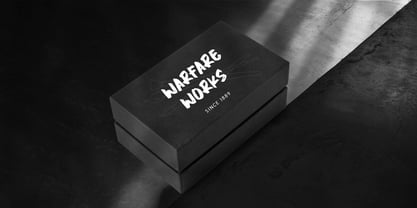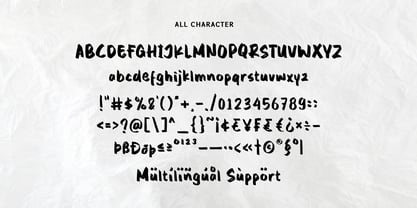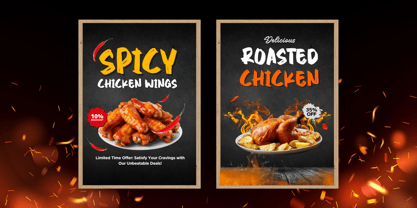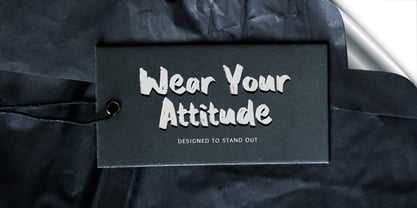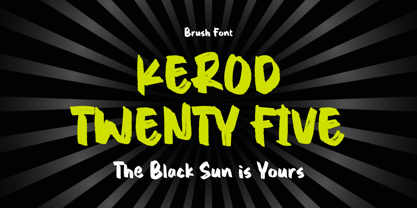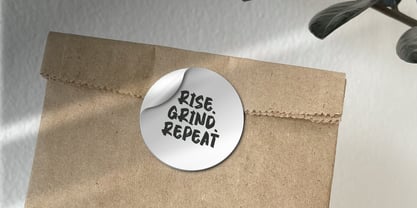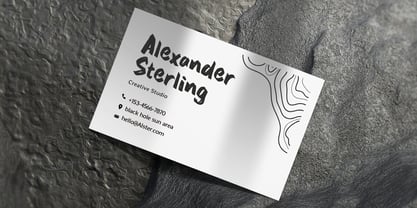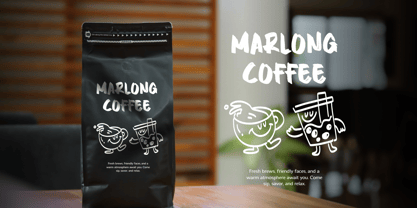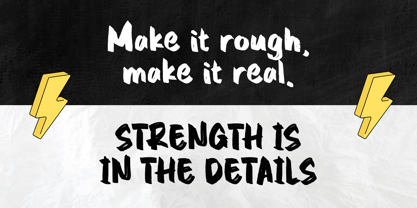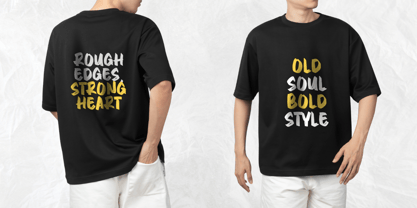
Kerod Twenty Five
by Sronstudio
The Kerod Twenty Five Font Family was designed by Muhamad Yusron Billah and published by Sronstudio. Kerod Twenty Five contains 1 styles. More about this family
Kerod Twenty Five is a bold and expressive brush font that brings a raw, hand-painted feel to your designs. With its dynamic strokes and textured details, this font is perfect for posters, logos, apparel, packaging, and any project that needs an energetic and artistic touch. Whether you're aiming for a street-style vibe or a handcrafted aesthetic, Kerod Twenty Five delivers a strong and authentic personality.
- Uppercase & lowercase letters
- Numerals & punctuation
- Multilingual support